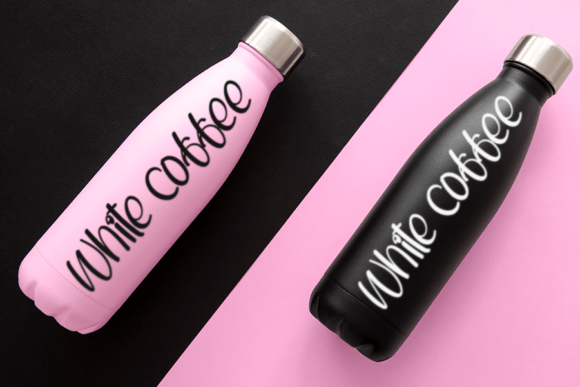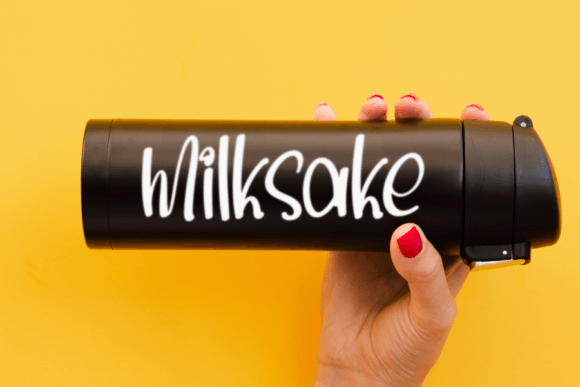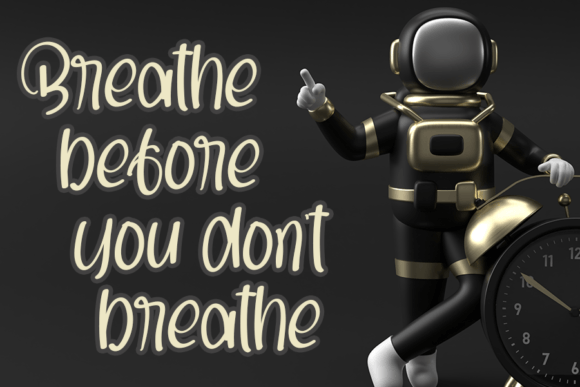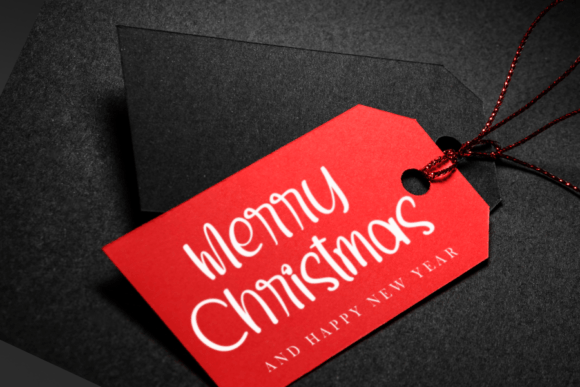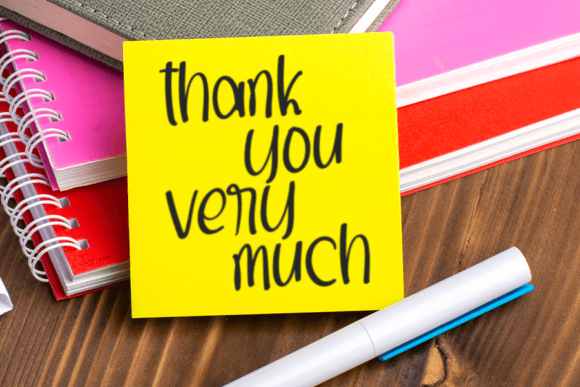
Fishing for Inspiration: Uncovering the Perfect Font
There’s nothing quite like the thrill of sitting down with a blank page, a cup of coffee, and a dash of creative energy. It’s a moment when anything is possible, and the world is full of endless possibilities. For designers, this moment is a chance to breathe life into a project and bring their vision to the forefront. And, as any creative will tell you, the right font can make all the difference.
Enter Fishing Font, a stunning handwritten font that exudes a contemporary atmosphere and impeccable form. Inspired by the timeless classic calligraphy, Fishing Font is the perfect addition to any design project looking to add a touch of elegance and sophistication. Whether you’re crafting a brand identity, creating a marketing campaign, or designing a website, Fishing Font is a valuable asset that will elevate your work to the next level.
Fishing Font Key Features
- Font Family: Fishing Font is a unique display font designed specifically for use in water-themed designs, logos, and other applications.
- Size: Fishing Font comes in a single weight, making it easy to use in various design contexts without worrying about matching weights.
- Unique Characteristics: The font features a distressed, hand-drawn feel, with subtle texture and imperfections that evoke a sense of authenticity and nostalgia.
Fishing Font Review
As a designer, I’ve had the chance to experiment with “Fishing Font” and here’s my honest take on it.
- Unique Flair: Fishing Font brings a playful, hand-drawn feel that can add a touch of whimsy to your designs.
- Legibility: Despite its informal look, Fishing Font is surprisingly legible, making it a great choice for body text or headings.
- Customization Options: The font offers a range of styles and weights, allowing you to tailor it to suit your design needs.
- Overuse Potential: Fishing Font’s playful feel can be overwhelming if used excessively, so be sure to balance it with other typography choices.
- Lack of Formality: As a casual, hand-drawn font, Fishing Font may not be suitable for formal or professional projects.
Overall, I think Fishing Font is a great addition to any designer’s toolkit, offering a fun and versatile option for adding personality to your designs. However, be mindful of its limitations and use it thoughtfully to avoid overkill.
Tips for Getting the Most Out of Fishing Font
Use Fishing Font to create unique and eye-catching designs. Experiment with different font sizes, styles, and colors to achieve the desired look.
Fishing Font is ideal for:
- Water-themed designs
- Outdoor and sports designs
- Food and beverage designs
Alternatives to Fishing Font